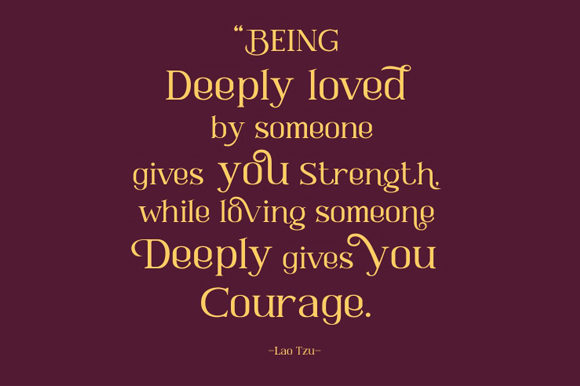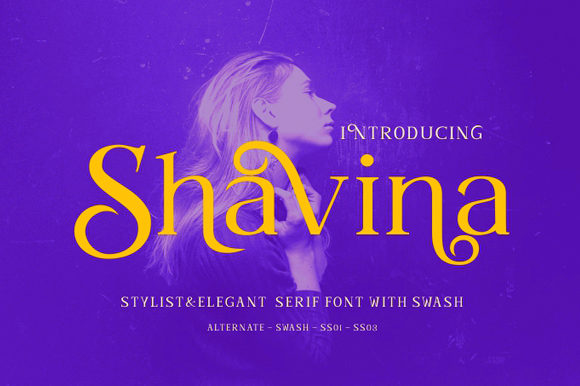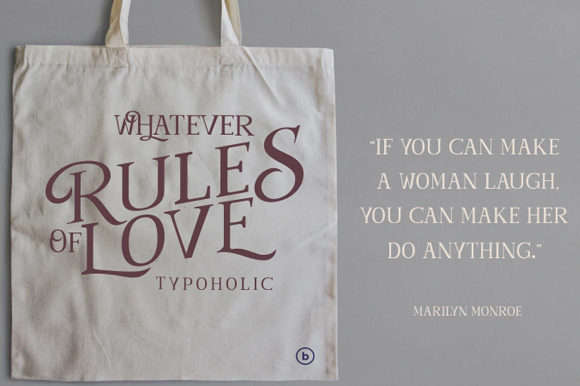
Introduction to Shavina Font
Have you ever been brainstorming for a creative project and suddenly, a spark of inspiration hits you? That’s exactly what happened when I stumbled upon the elegant Shavina Font. Its unique feel and modern playfulness instantly caught my attention, and I knew I had to share it with fellow designers.
As a valuable design resource, the Shavina Font offers a high-quality alternative to traditional fonts. With its transparent background, it’s perfect for creating eye-catching graphics and visual content. Whether you’re working on a free download or a paid project, this font is sure to elevate your design game. In this article, we’ll delve into the world of Shavina Font and explore its benefits for designers.
Key Features of Shavina Font
- High-quality, professional design suitable for creative projects, with a free download available.
- Unique, elegant font with a transparent background, making it easy to layer and customize.
- Perfect design resource for graphic designers, digital artists, and anyone seeking a sophisticated font for their creative project.
- Unique characteristics include swashes, ligatures, and alternate characters, allowing for endless creative possibilities.
Honest Review: Shavina Font
As a designer, I’m always on the lookout for high-quality design resources to elevate my creative projects. Recently, I had the chance to work with the Shavina Font, and I’m excited to share my honest review with you.
- ✨ Elegant and modern design aesthetic that’s perfect for minimalist projects.
- ✨ Comes with a transparent background, making it easy to use with any design element.
One of the standout features of the Shavina Font is its versatility. I found it to be a great choice for a variety of design projects, from logo design to web typography.
- ⚠️ Limited character set, which may not be ideal for longer blocks of text.
- ⚠️ Some users may find the font a bit too minimalist, lacking in character.
Overall, I’m impressed with the Shavina Font. While it may not be perfect, it’s a great addition to any designer’s toolkit. With its modern design aesthetic and transparent background, it’s a great choice for designers looking for a high-quality design resource.
Tips for Getting the Most Out of Shavina Font
The Shavina Font is suitable for a variety of design projects, including business cards, brochures, posters, and social media graphics. Its modern and elegant design makes it perfect for creating high-quality and visually appealing designs.